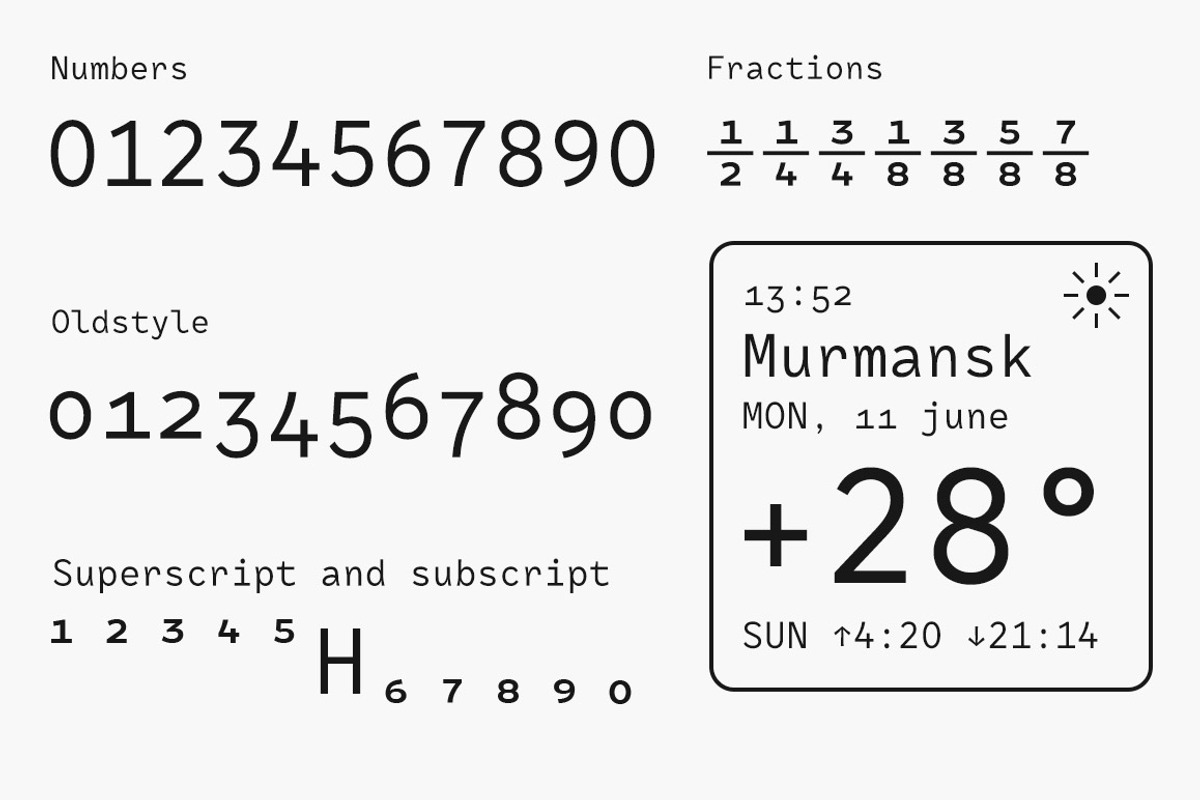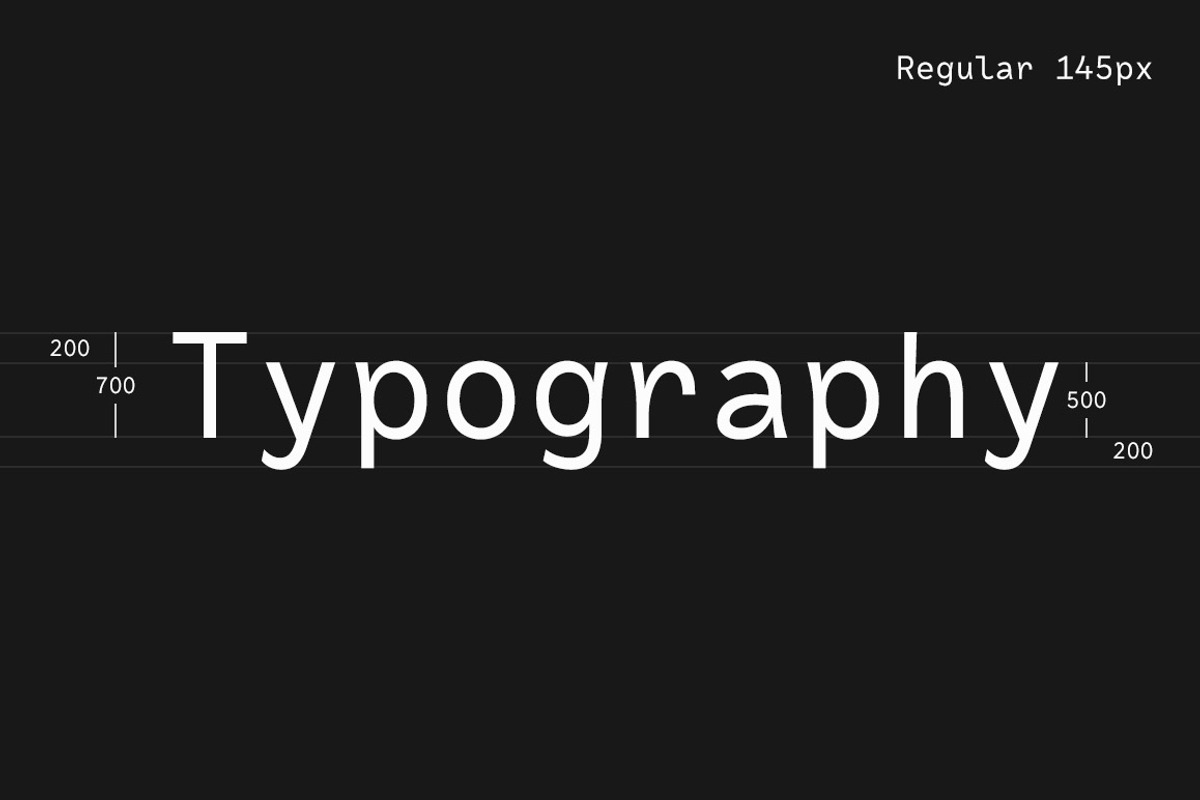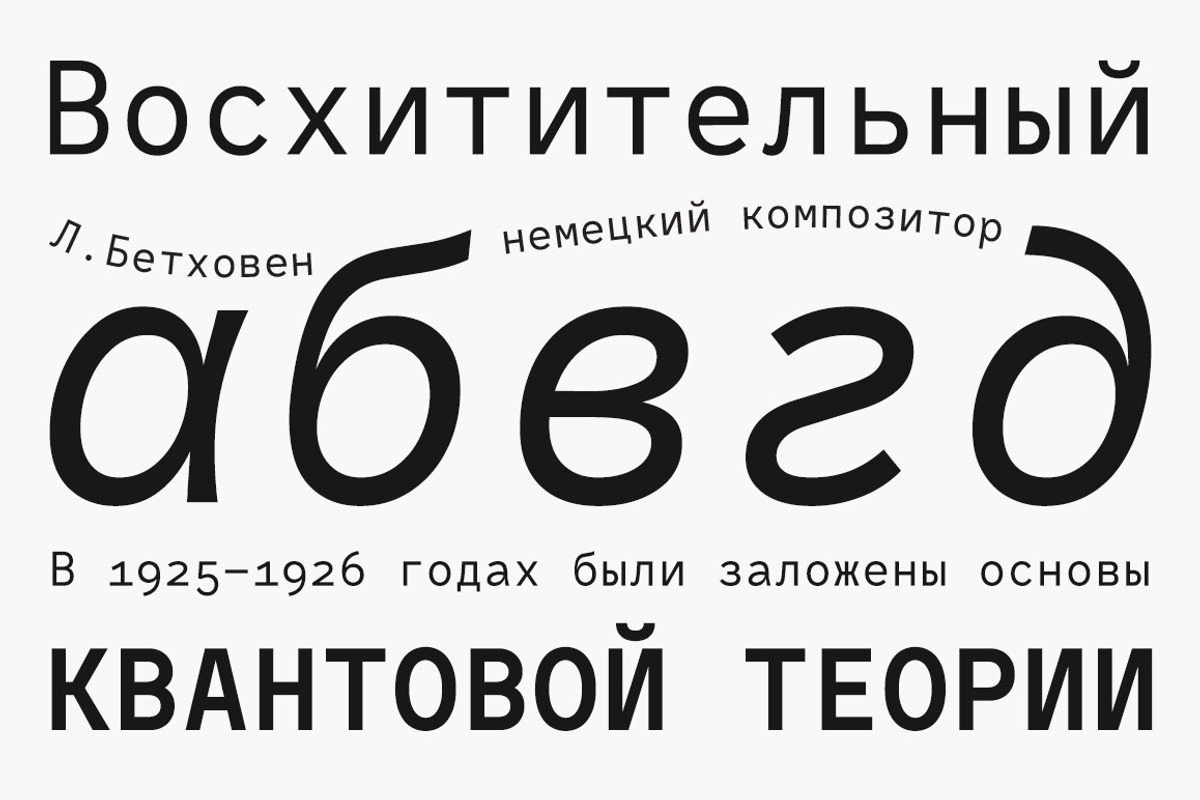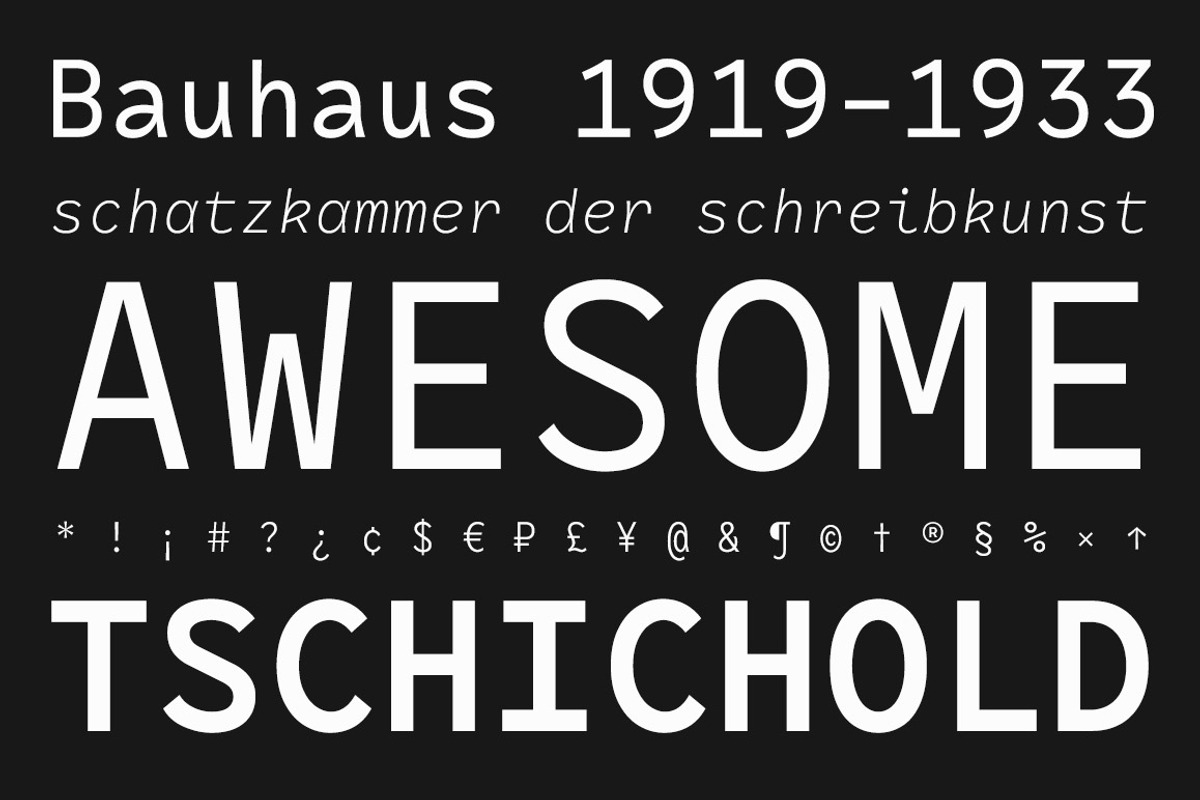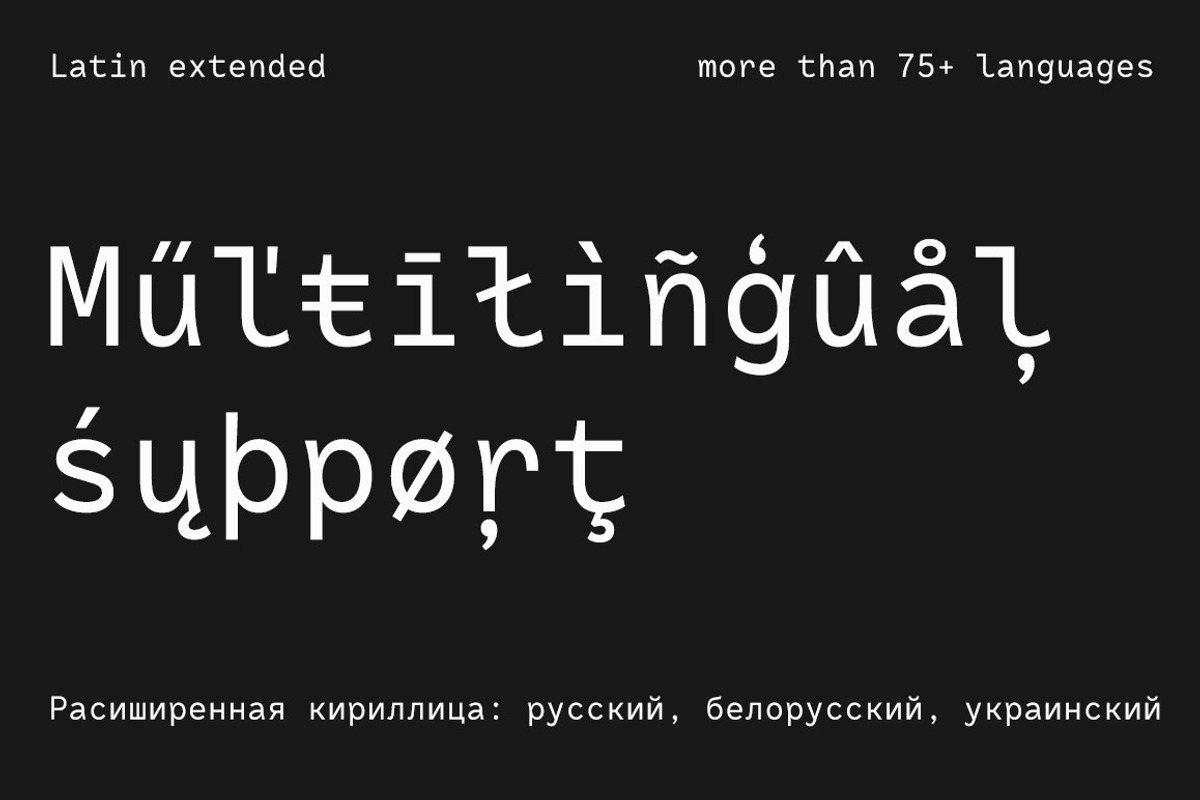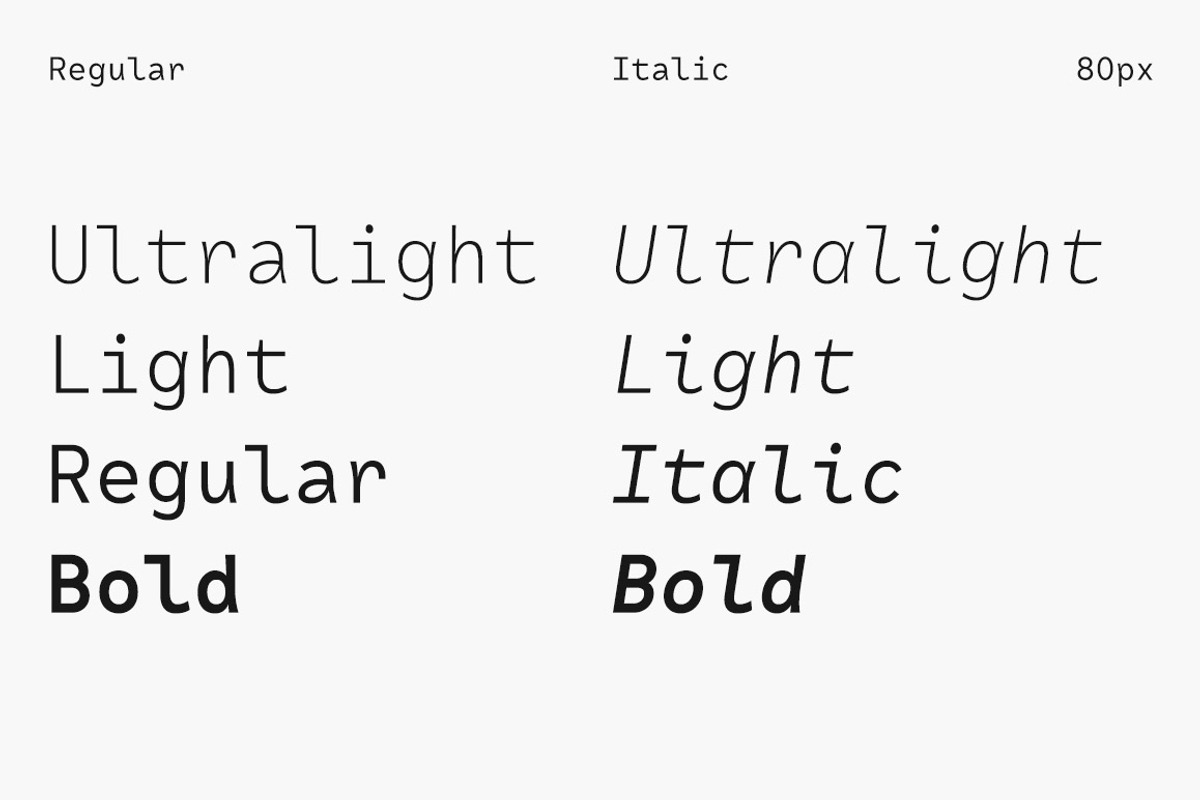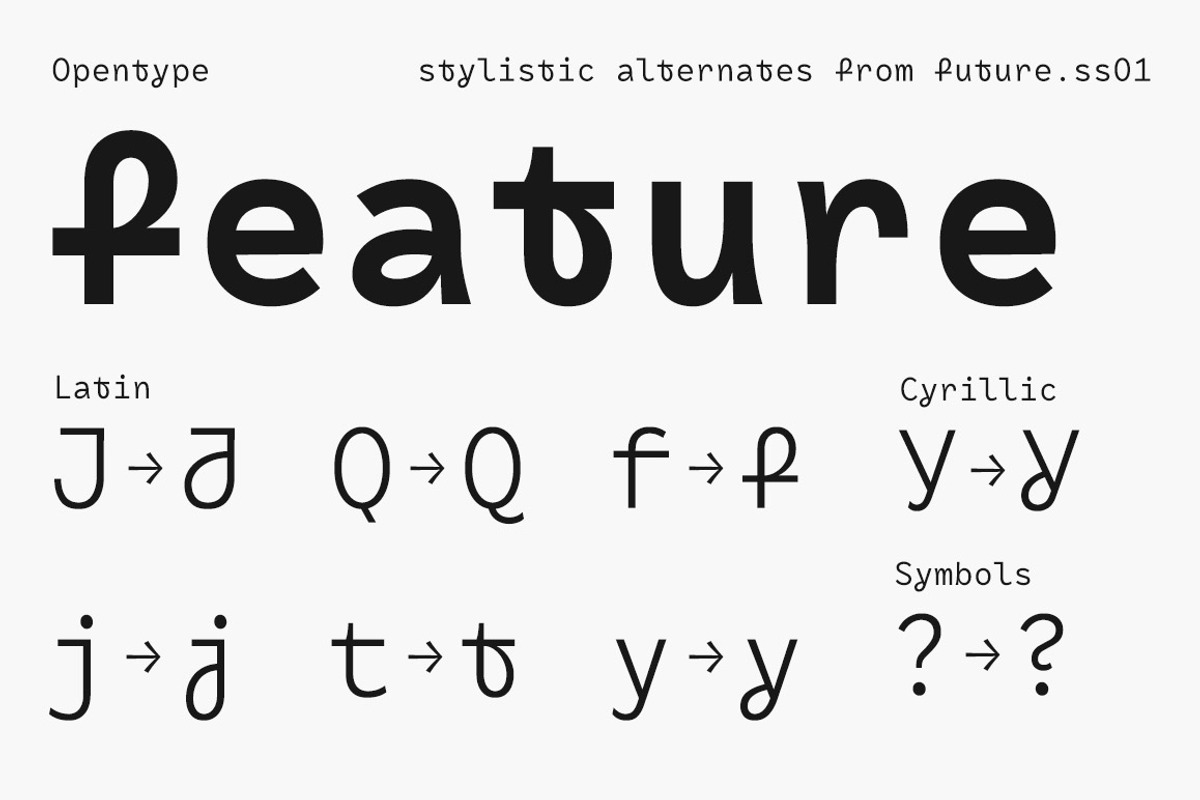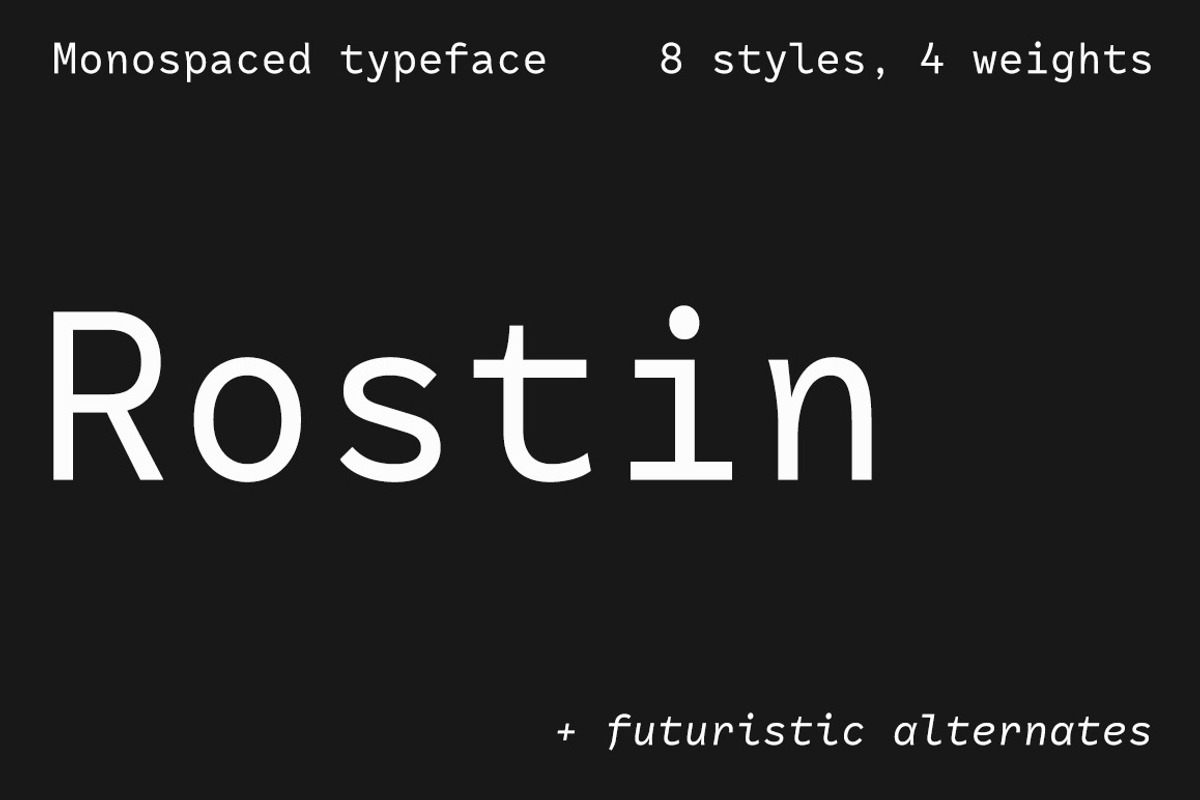
Rostin - Full pack
Rostin is a modern monospaced typeface with half-open forms of characters. Contains 8 fonts. 4 regular and 4 true italic. Weights from ultralight to bold. Including modern and futuristic stylistic alternates.
The typeface was designed to read well in small sizes (from 15px) and be bright in large sizes. With these characteristics and a wide palette of weights Rostin has a huge potential area for usage. Ideally suited for musical covers, posters, logos, street wear, movie titles, packaging, editorial, web and applications - here he will always be gorgeous.
With a wide variety of alternate characters you can make your design bright, memorable and modern.
Superscript and subscript
Cyrillic, cyrillic extended
Latin, latin extended (Western European, Central European, South-East)